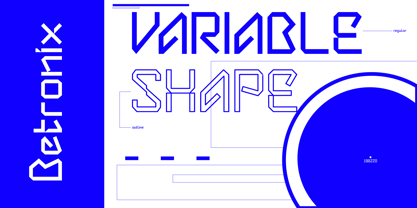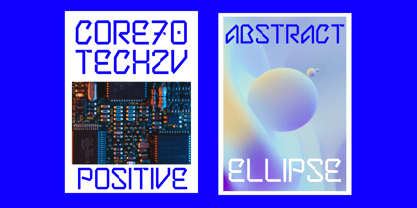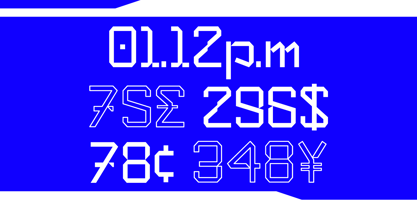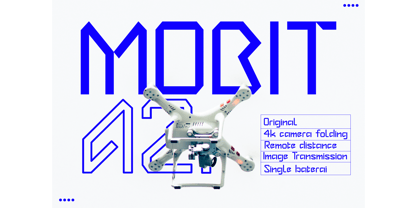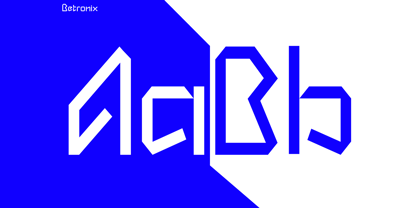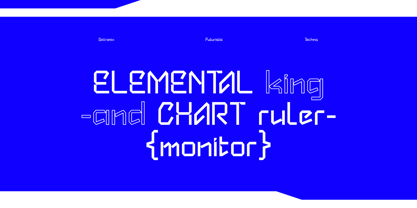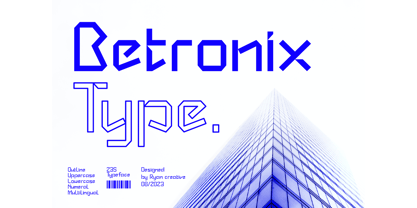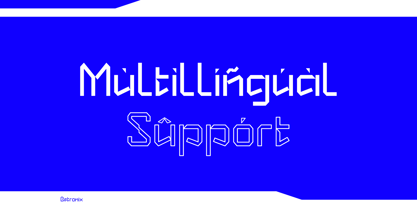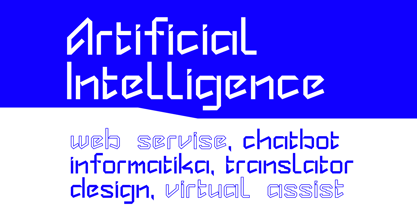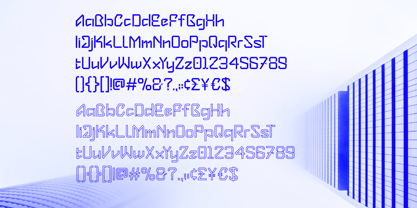
Betronix line
by ryan creative
The Betronix line Font Family was designed by ryan creative and published by ryan creative. Betronix line contains 2 styles and family package options. More about this family
Betronix is ​​a tech typeface designed by Ryan creative that embodies a strong and modern vision approach, formal rigor, and shows a variety of designed characters including glyphs as well as depicting graphics in a modern, powerfully constructive anatomical way.
FEATURES;
• Uppercase, Lowercase
• Supports Foreign Languages, Numbers and Punctuation.
• Regular & Outline